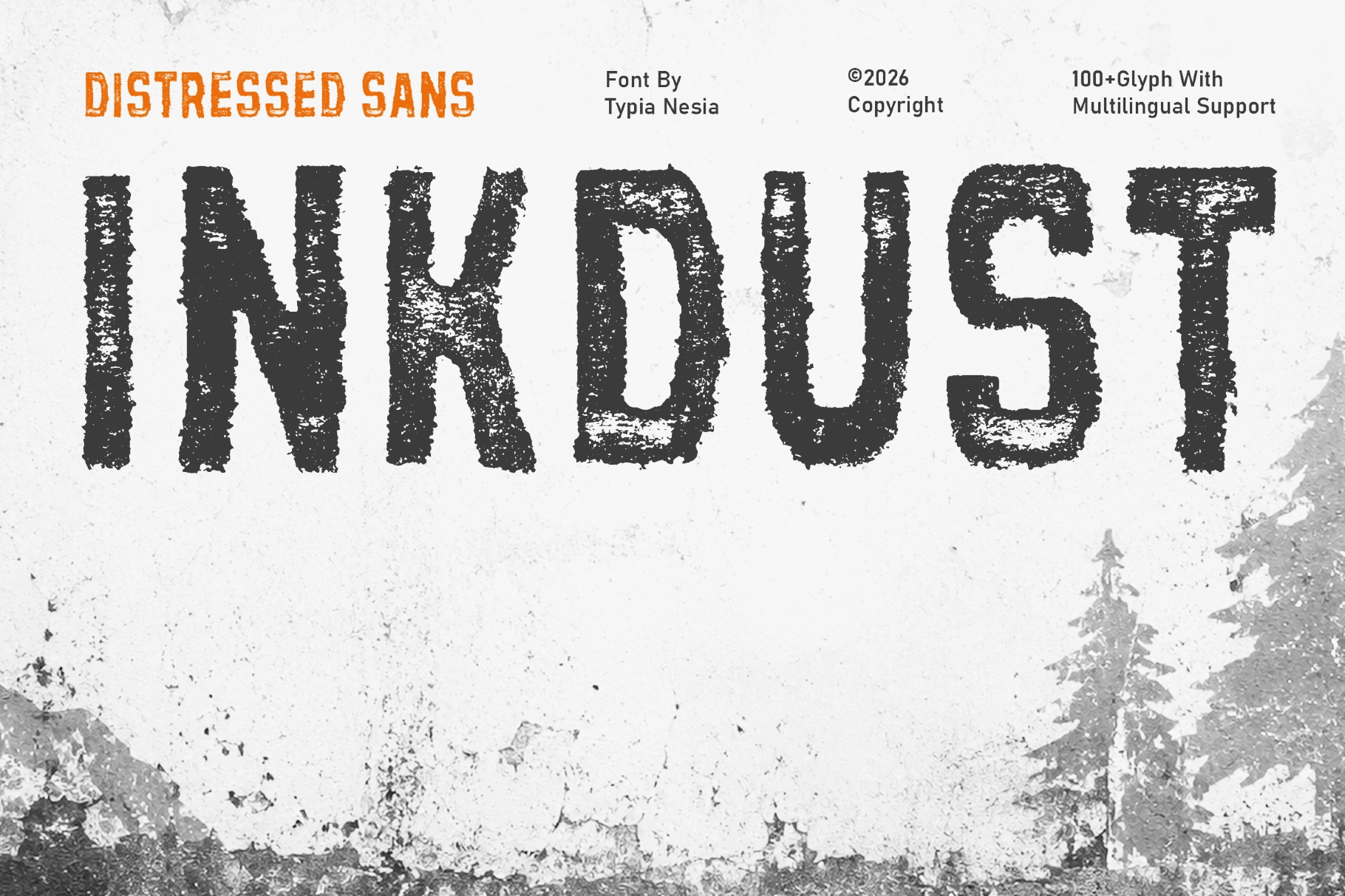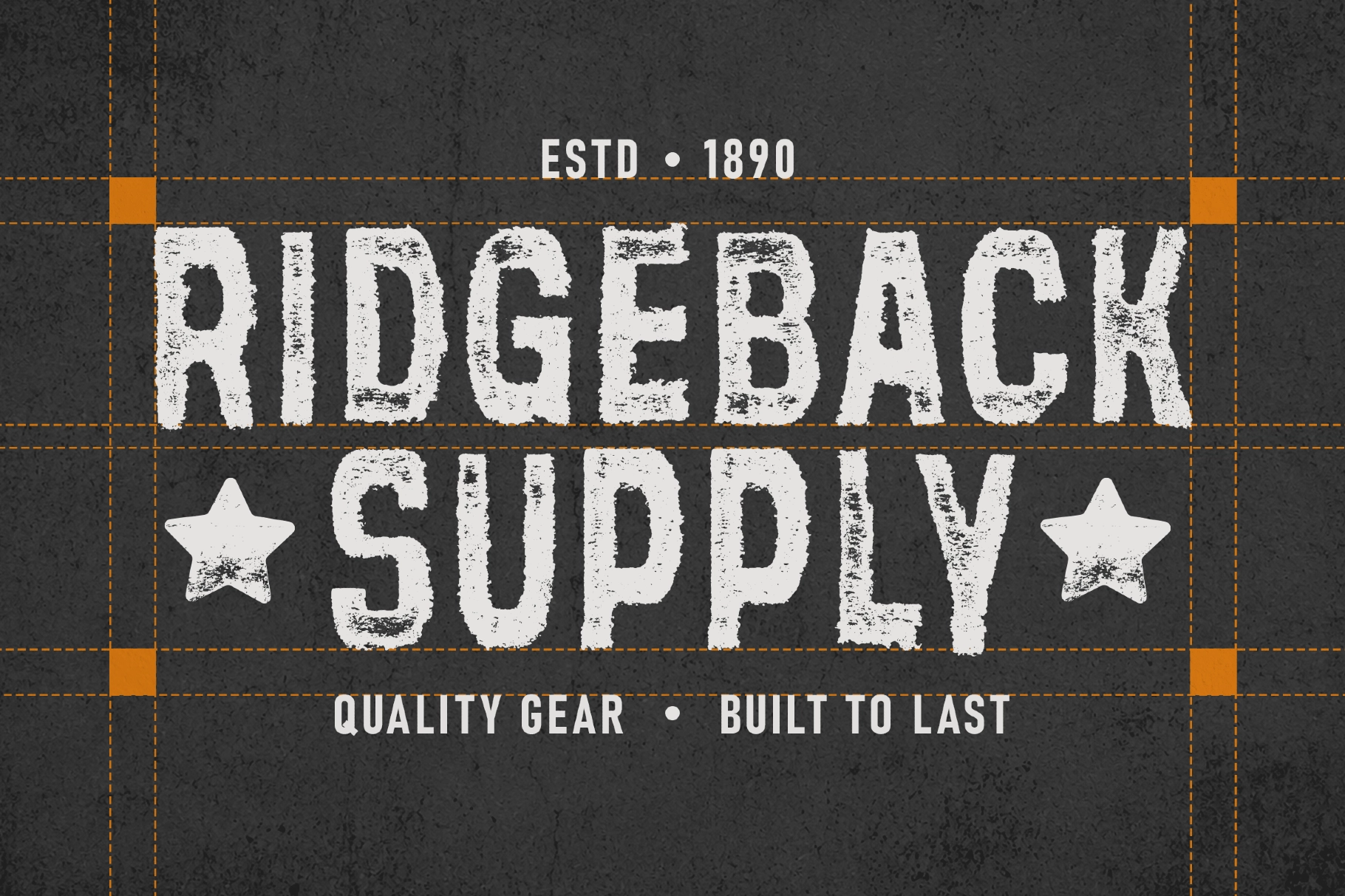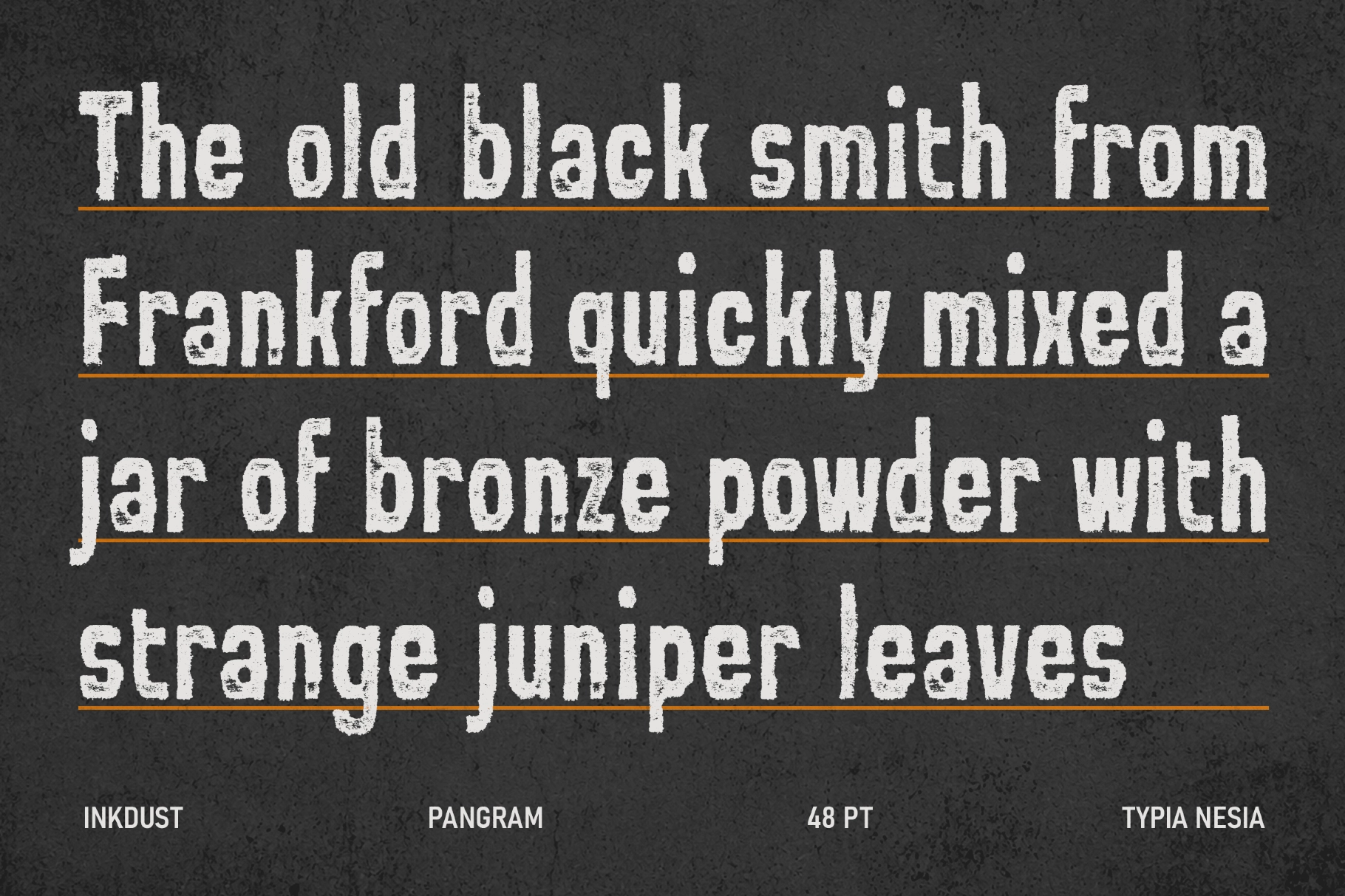
Inkdust - Distressed Vintage Sans Serif Font
Inkdust
Inkdust is a distressed vintage sans font built from rough, chalk-stamped strokes and cracked, uneven edges. Each letter shows a worn inked texture, so the face reads closer to a hand-stamped shop sign than a clean digital cut.
Inkdust holds up in both display sizes and short body lines, giving branding work a rugged, print-worn finish. Use it for outdoor brand logos, craft packaging, brewery labels, workwear branding, vintage posters, restaurant identities, adventure merch, and editorial headlines.
- uppercase & lowercase;
- multilingual support;
- 100+ glyphs total